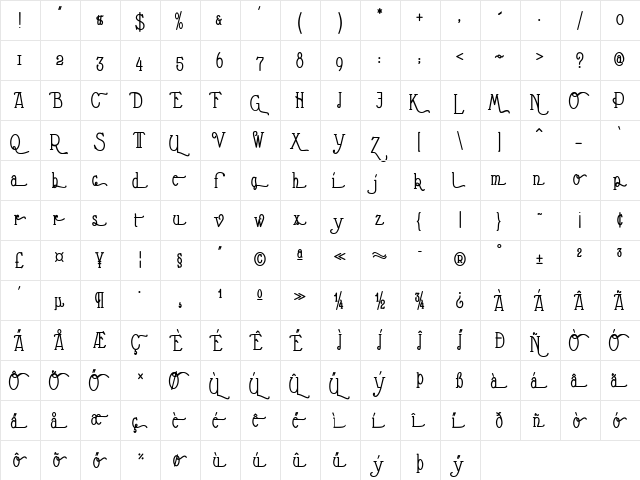
Nathan Alternates Condensed Regular
| Foundry | Peter Wiegel |
| Designer | Peter Wiegel |
Design Context for Nathan Alternates Condensed Typeface
Nathan Alternates Condensed is a composed and adaptable typeface that performs quietly and consistently across a wide range of design contexts. The condensed width makes it efficient for tight spaces without sacrificing legibility.